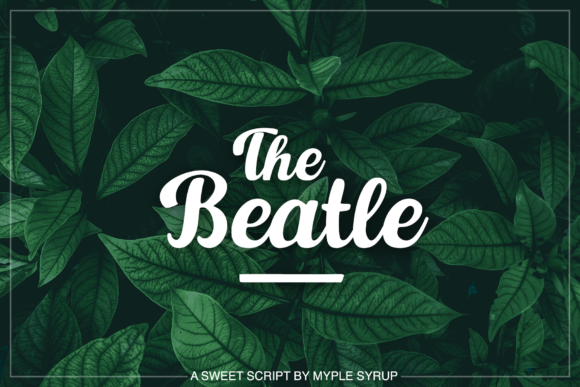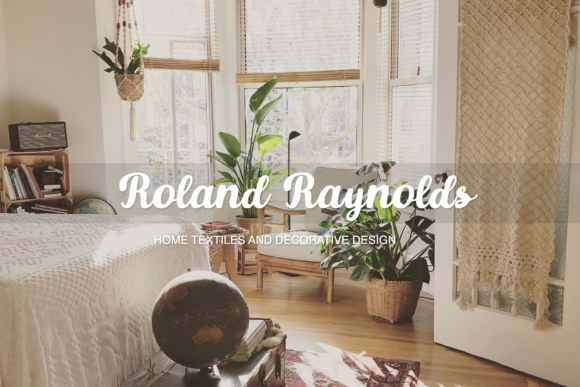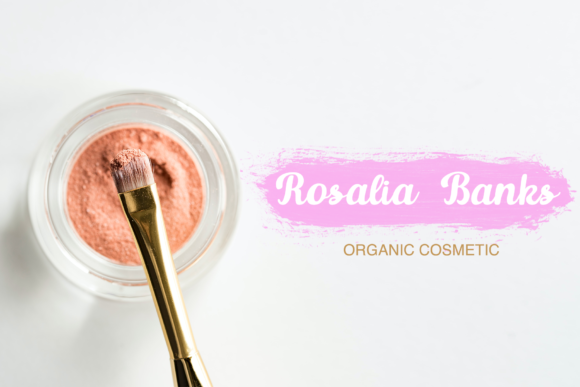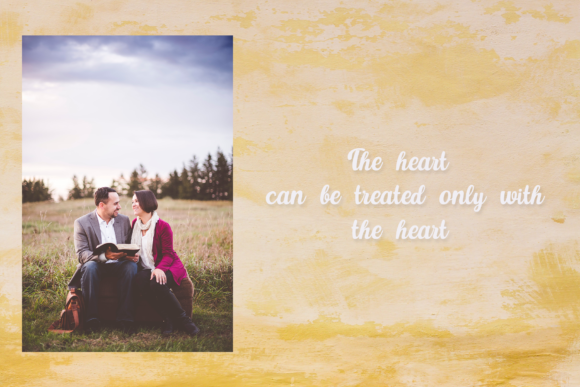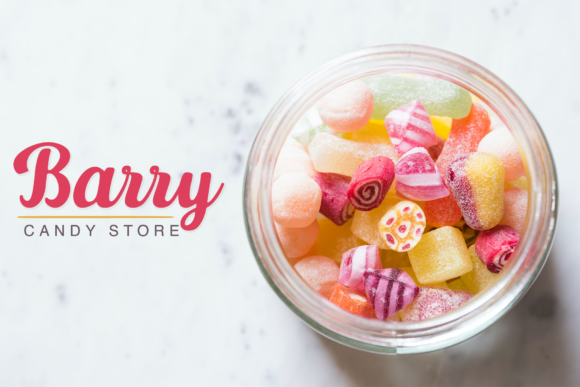
The Beatle Font
About The Beatle Font
The Beatle has a completely unique and enchanting style, with playful rounded characters, making it the perfect font for creating stunning art. Get inspired by The Beatle and its authentic feel, and use it to make beautiful wedding invitations, stunning social media posts, and cute greeting cards.